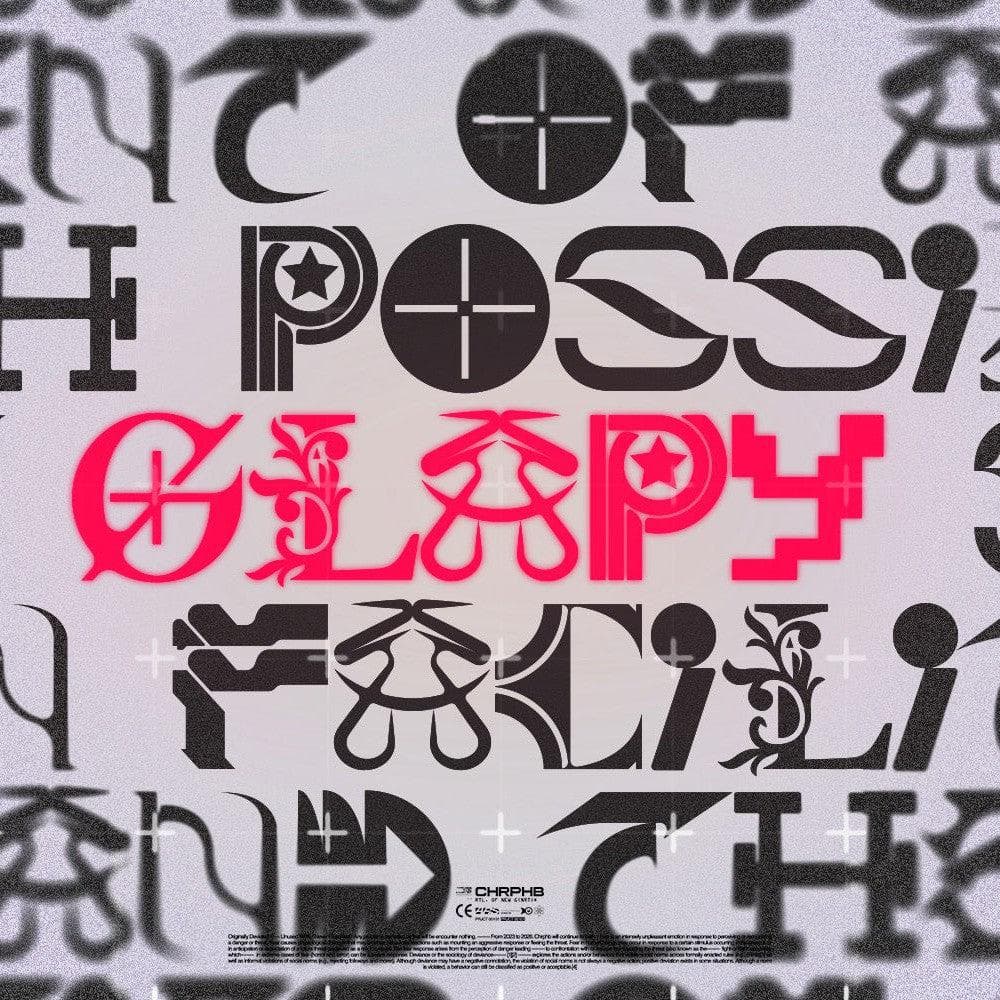
<p>If you want a fun font with a "random" look, a team of experts has created "GLAPY" in the laboratory, just for you! To mix with classic lowercase letters, it gives your design a modern, happy and trendy style! Letters, main symbols and numbers.<br>- Supplied in .otf format</p>